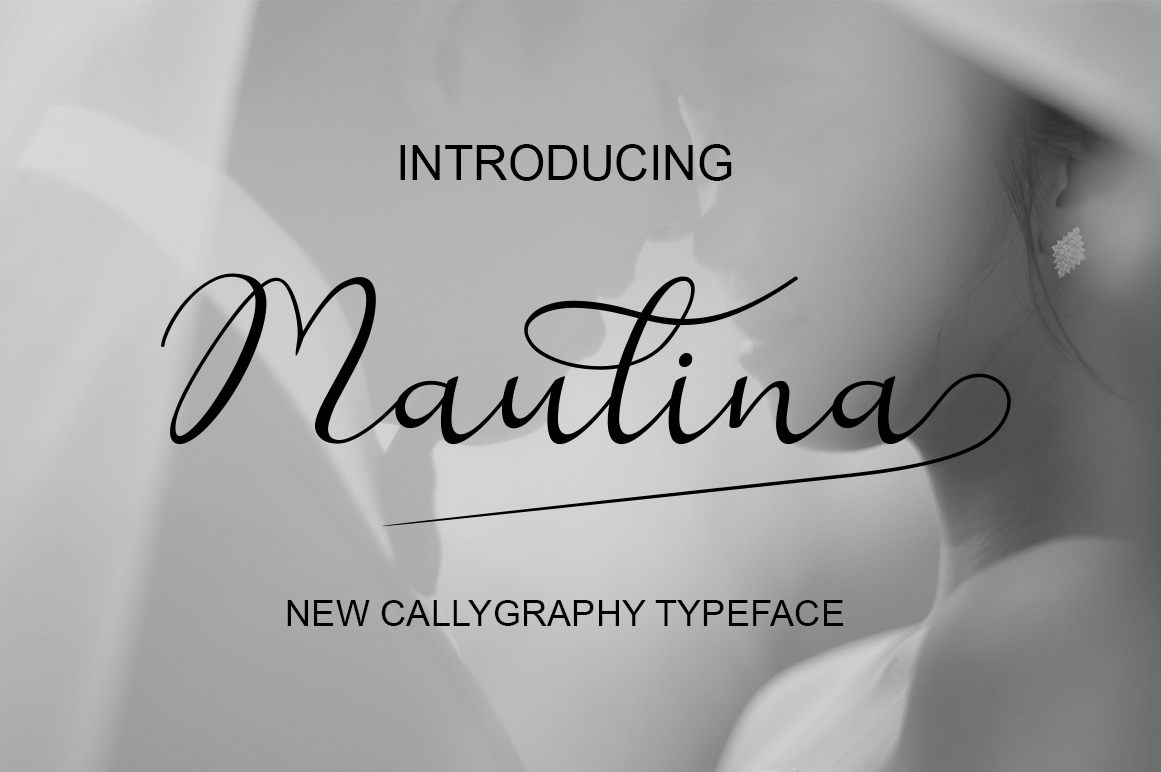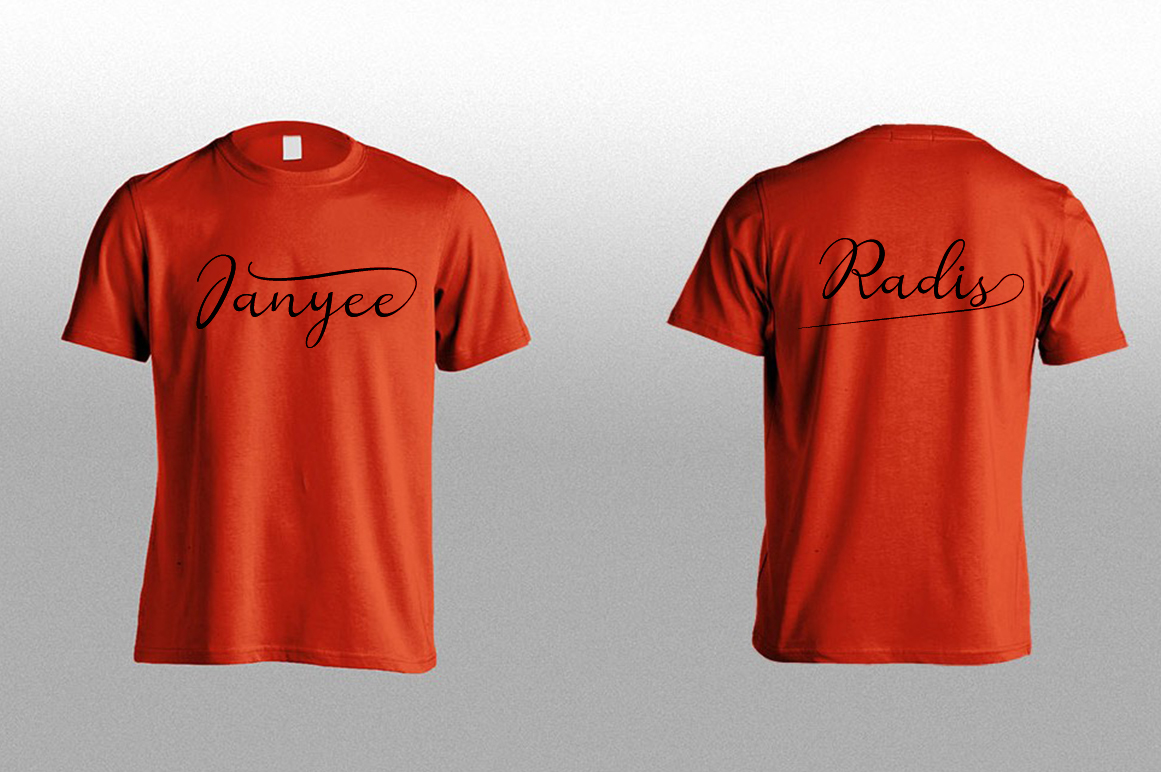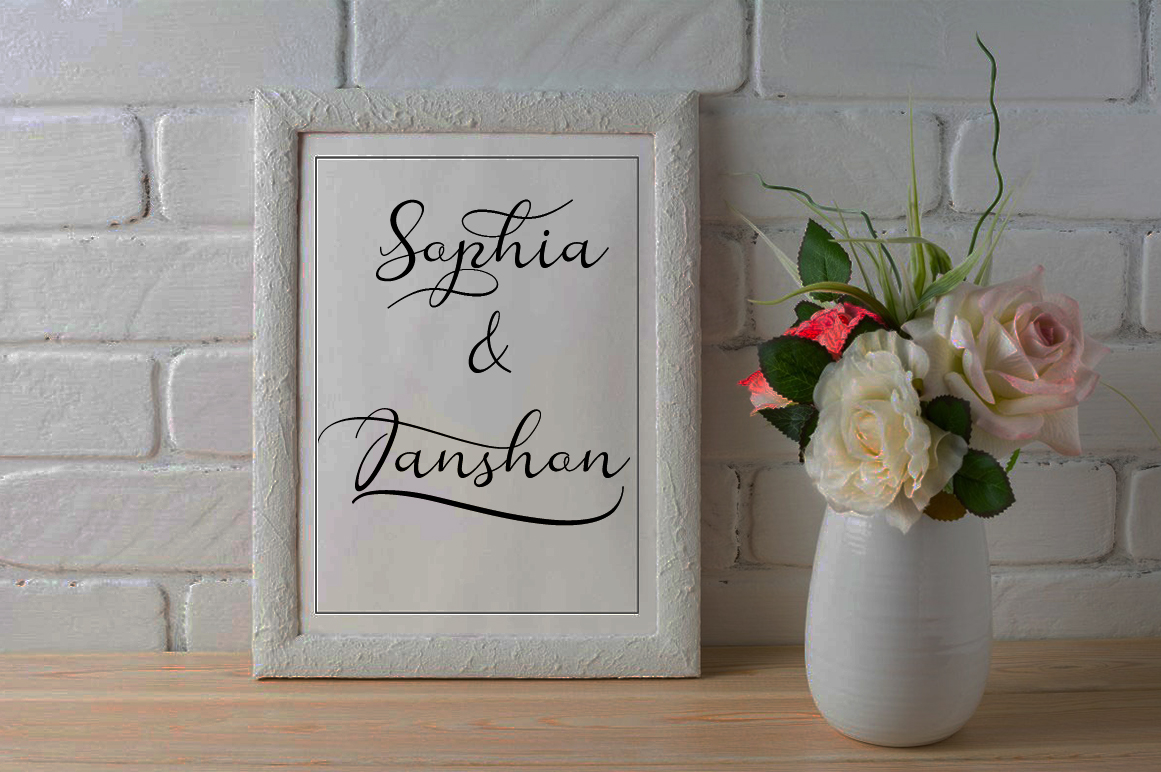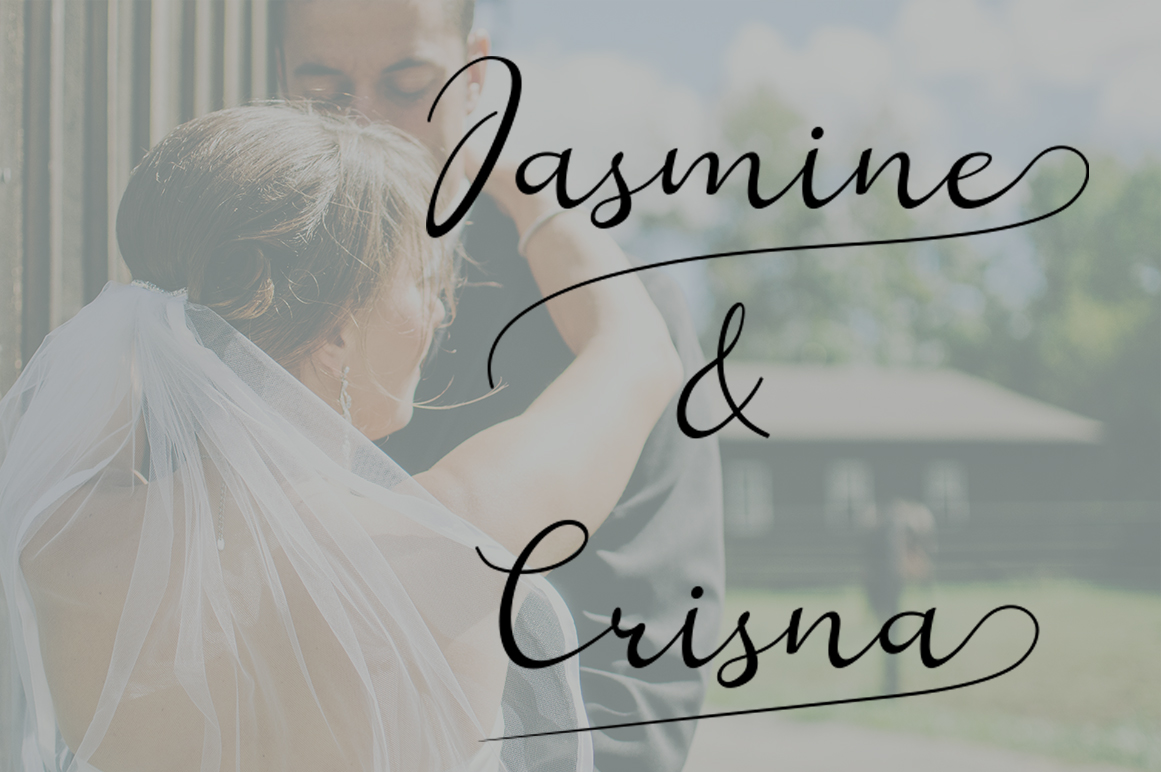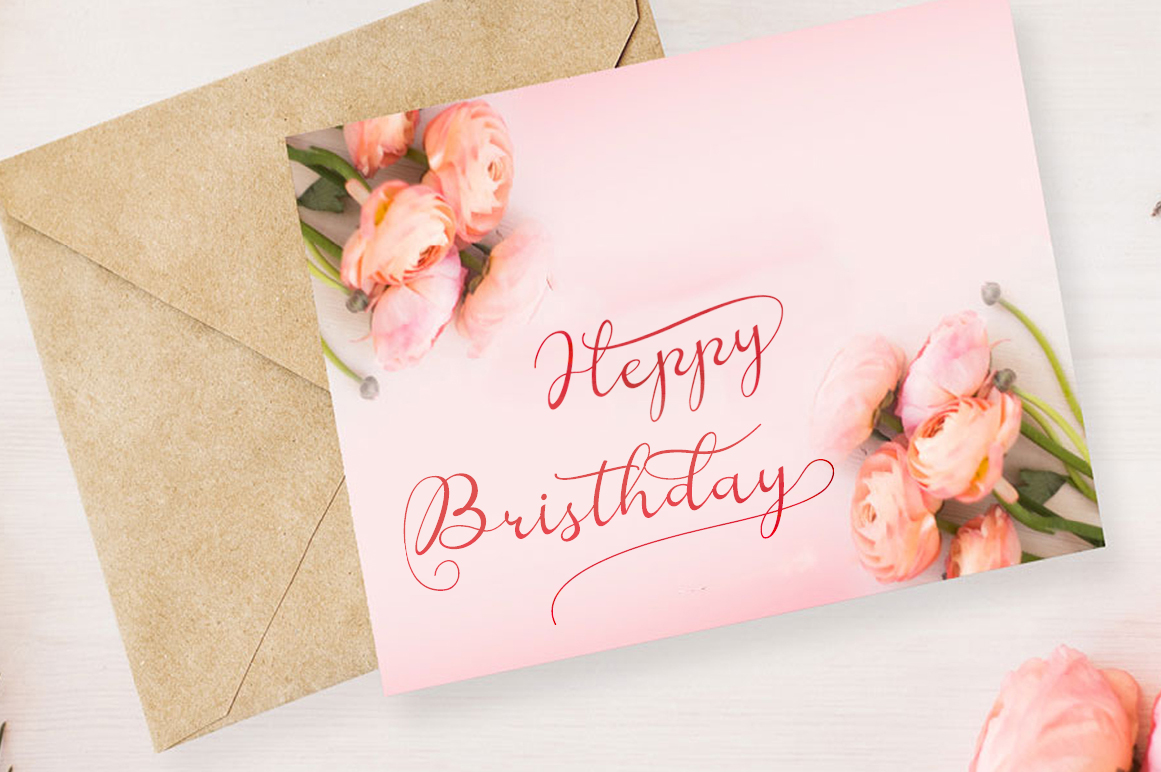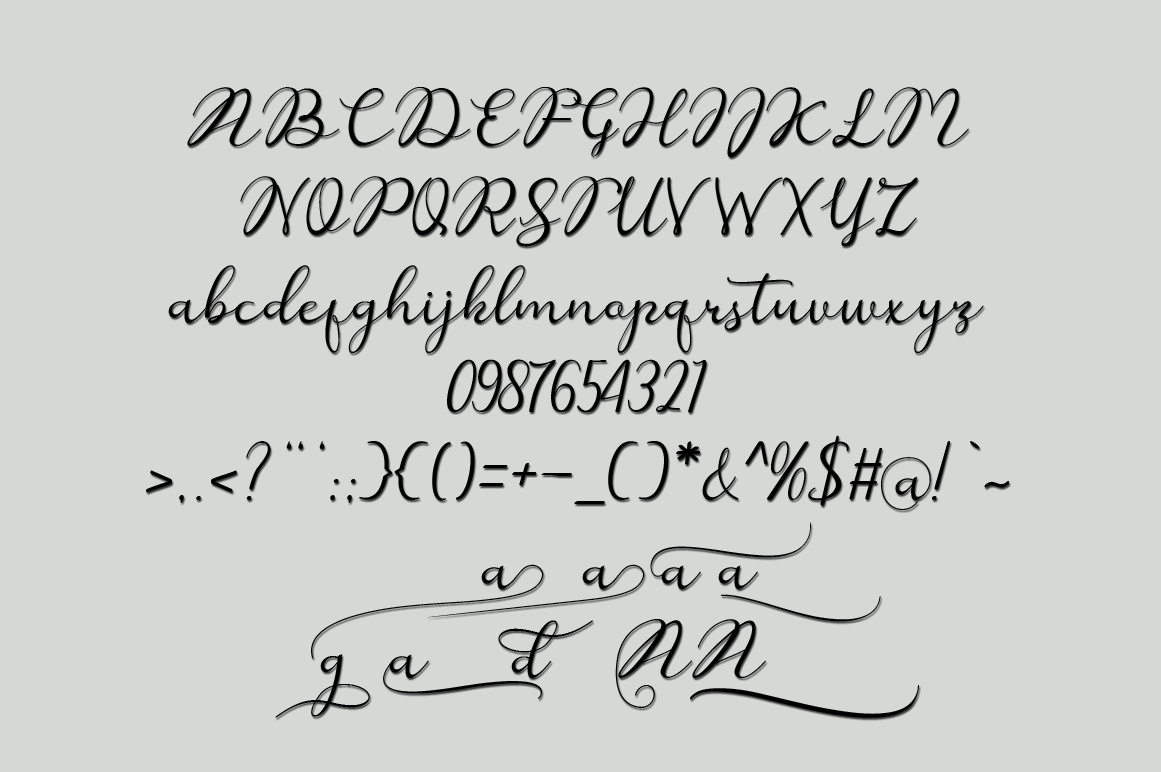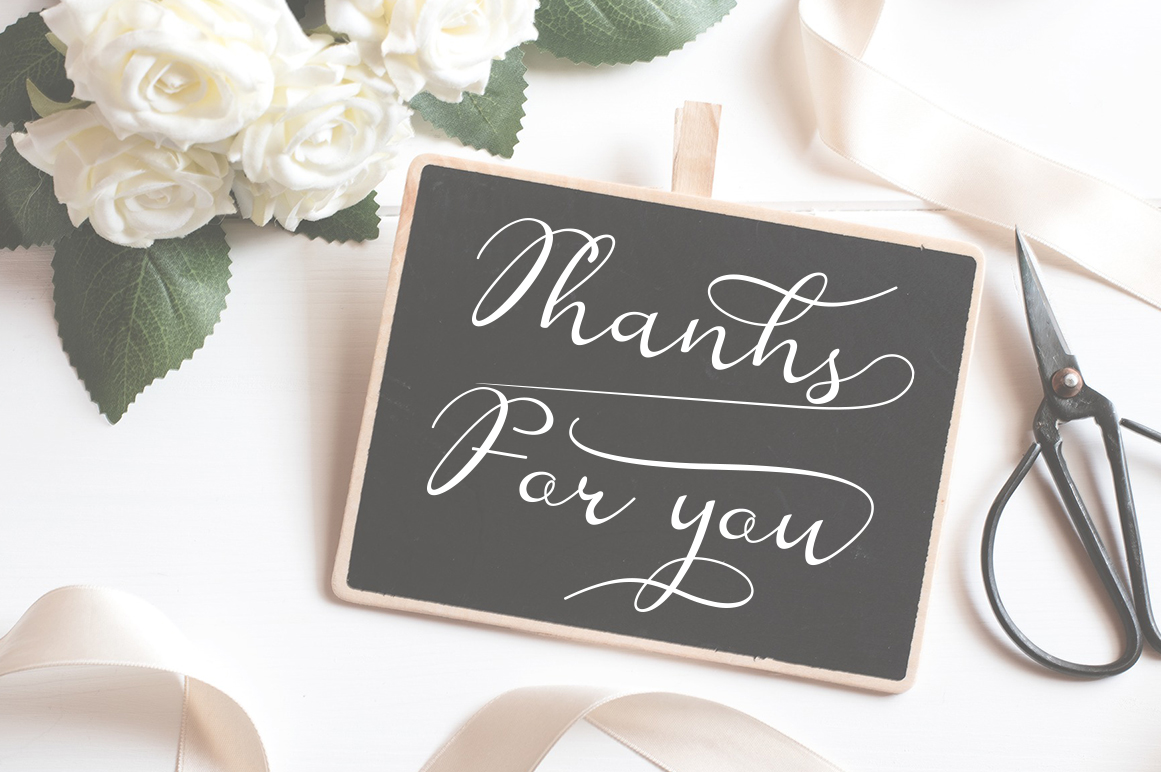
Reula Maulina Font
About Reula Maulina Font
Reula Maulina is a gorgeous and delicate script font, ideal for a wide range of special occasion designs and projects. This font comes with tons of stylistic alternates and insinuates luxury and class.